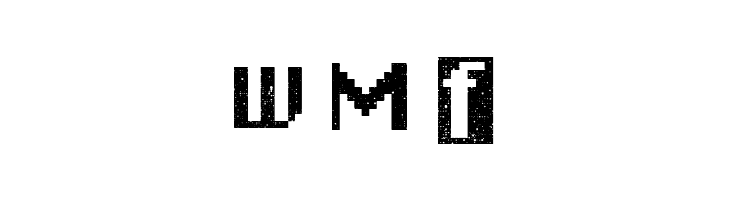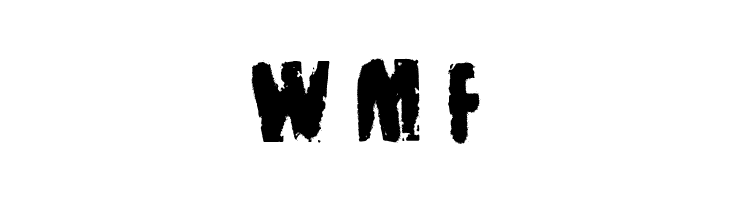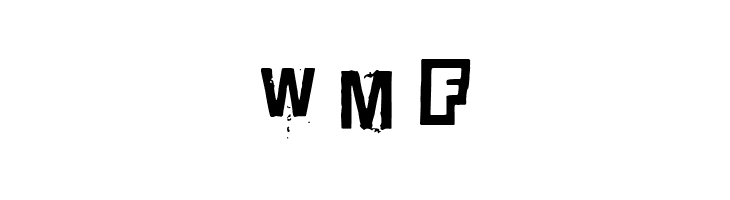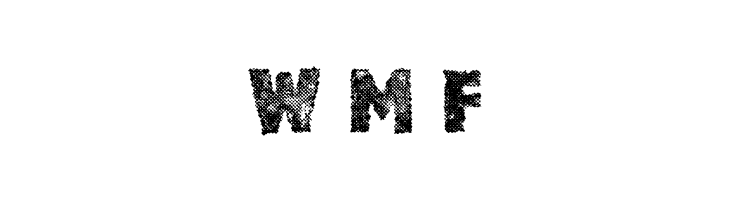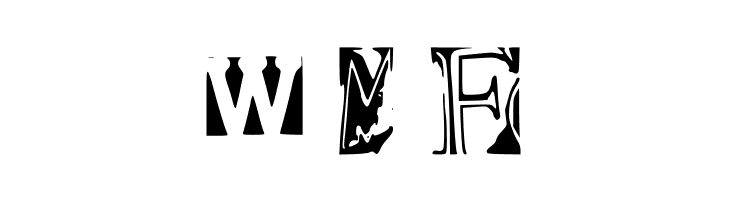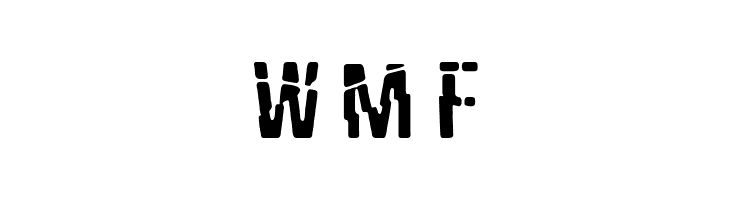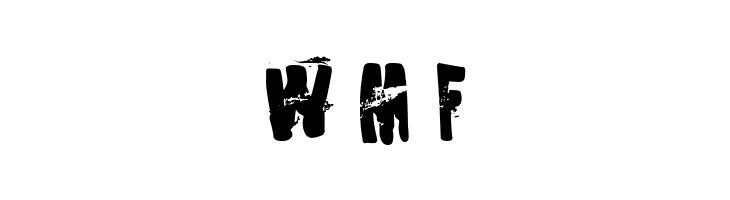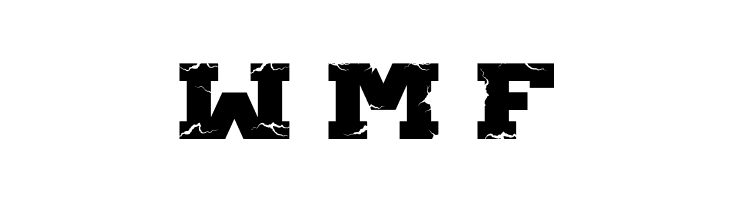
black dogma Font
Font by _ABs_
A rugged, distressed font with jagged edges and a bold appearance.
Black Rat Punk Band Font
Font by Woodcutter
A gritty, distressed font with a rebellious punk rock aesthetic.
Chicago Punk Font
Font by Woodcutter
A gritty, distressed font with a punk rock aesthetic and bold, blocky characters.
Courier punk Version Font
Font by Woodcutter
A bold, edgy font with punk and industrial influences, featuring unique decorative elements.
Found Type Font Regular Font
Font by Mariah Aytch
A decorative and eclectic font with unique, artistic character designs.
HUGE CRACK Font
Font by MaknaStudio
A bold, distressed font with a rugged, cracked texture.
La Estropeada Font
Font by Woodcutter
A distressed, fragmented font with a bold and edgy appearance.
Ministry Of Fonts3 Regular Font
Font by Chrissie Sanders
A bold, distressed font with a vintage, textured appearance.
One two thirty-four Font
Font by junkohanhero
A bold, distressed font with a grunge, ransom note style.
Personal Dealer Font
Font by Woodcutter
A bold, distressed font with a hand-painted, textured appearance.
RUSTY CAGE Regular Font
Font by Billy Argel
A bold, textured font with a distressed, grunge style.
Social Crisis Font
Font by Woodcutter
A bold, distressed font with a grunge aesthetic and textured, worn appearance.
Super Glitch Press Font
Font by Woodcutter
A bold, distressed font with a glitch-like, fragmented appearance.
The Death Machine Font
Font by Octotype | Thomas Boucherie
A bold, distressed font with a gritty, textured appearance.
The Russian Spy Font
Font by Woodcutter
A distressed, grunge-style font with bold, narrow characters and a rugged appearance.